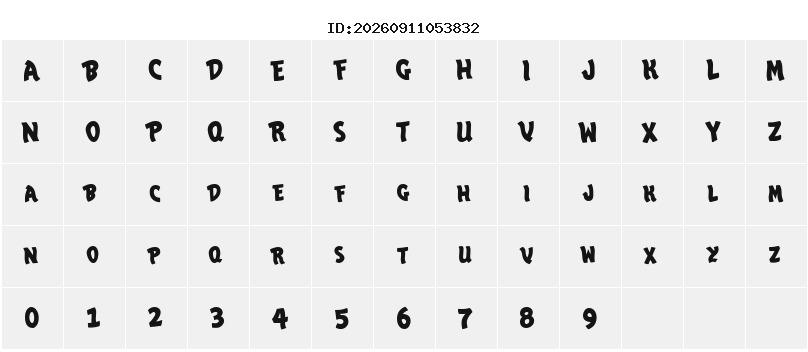
• Font Name: VegasCaravan
• Full Font Name: VegasCaravan
About VegasCaravan.ttf
VegasCaravan.ttf is a modern, elegant sans-serif font designed for ultimate readability and visual harmony. Perfect for branding, headlines, web design, and print materials.